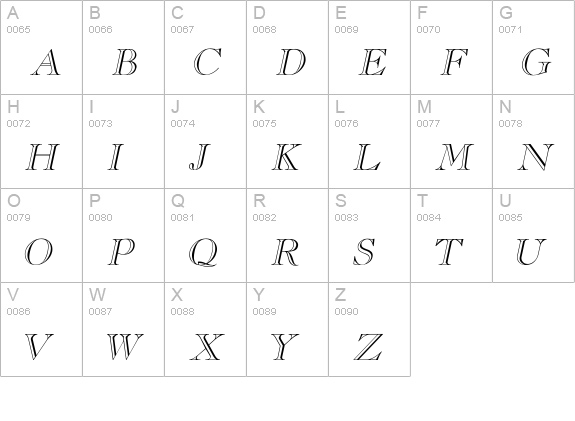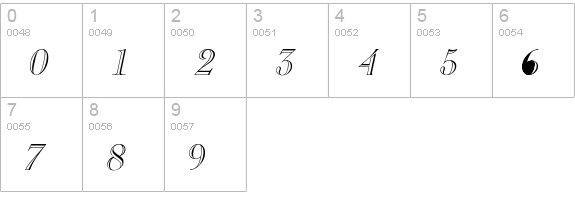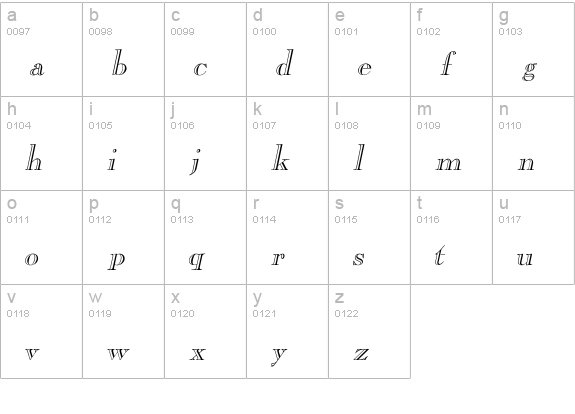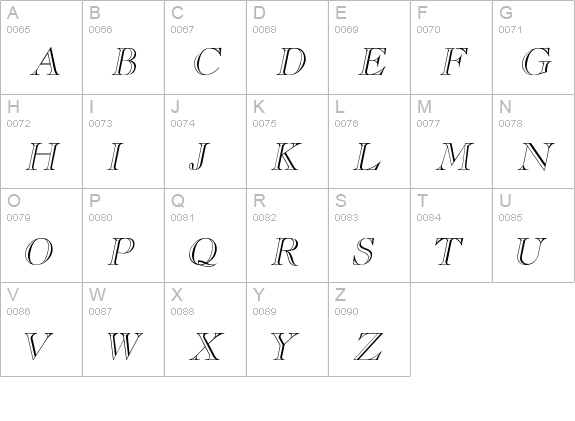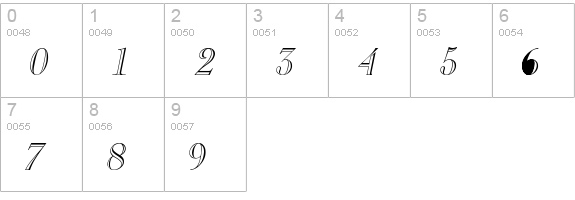
Caslowe_OpenFaI Font Details
Caslowe_OpenFaI is a modern and stylish font that exudes elegance and sophistication. Its clean lines and sleek curves make it perfect for a wide range of design projects, from branding to editorial work. This versatile font is suitable for both display and text use, adding a touch of class to any project. One of the best things about Caslowe_OpenFaI is that it is available for free download at FontsMarket.com. This means that you can easily access this beautiful font without any cost, making it a valuable addition to your font collection. Whether you are a professional designer looking for a new typeface to elevate your work, or a hobbyist looking to experiment with different fonts, Caslowe_OpenFaI is a fantastic choice that won't break the bank. With its timeless design and effortless charm, Caslowe_OpenFaI is sure to become a go-to font for all your design needs. Download it today and see how it can enhance your projects with its unique style and flair.